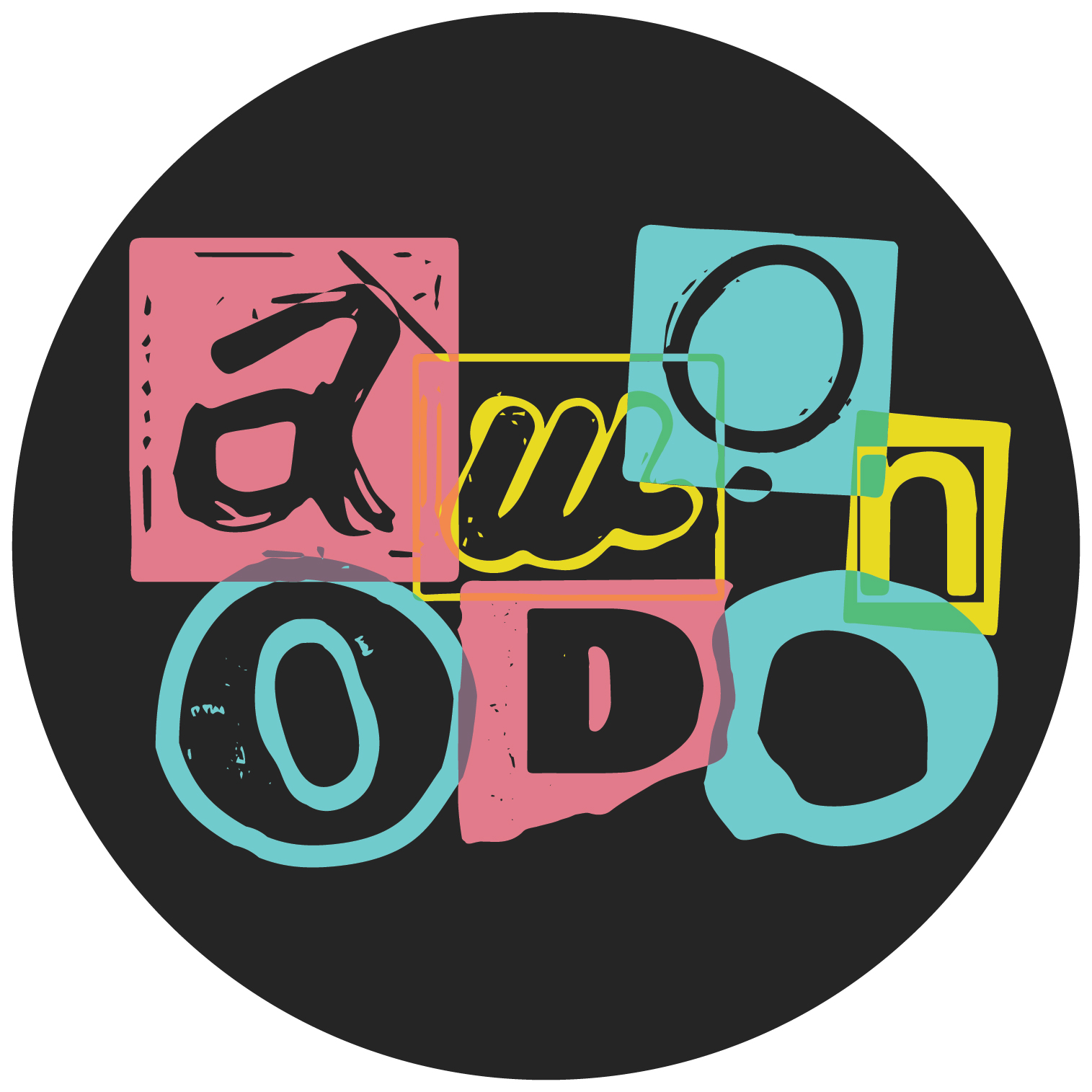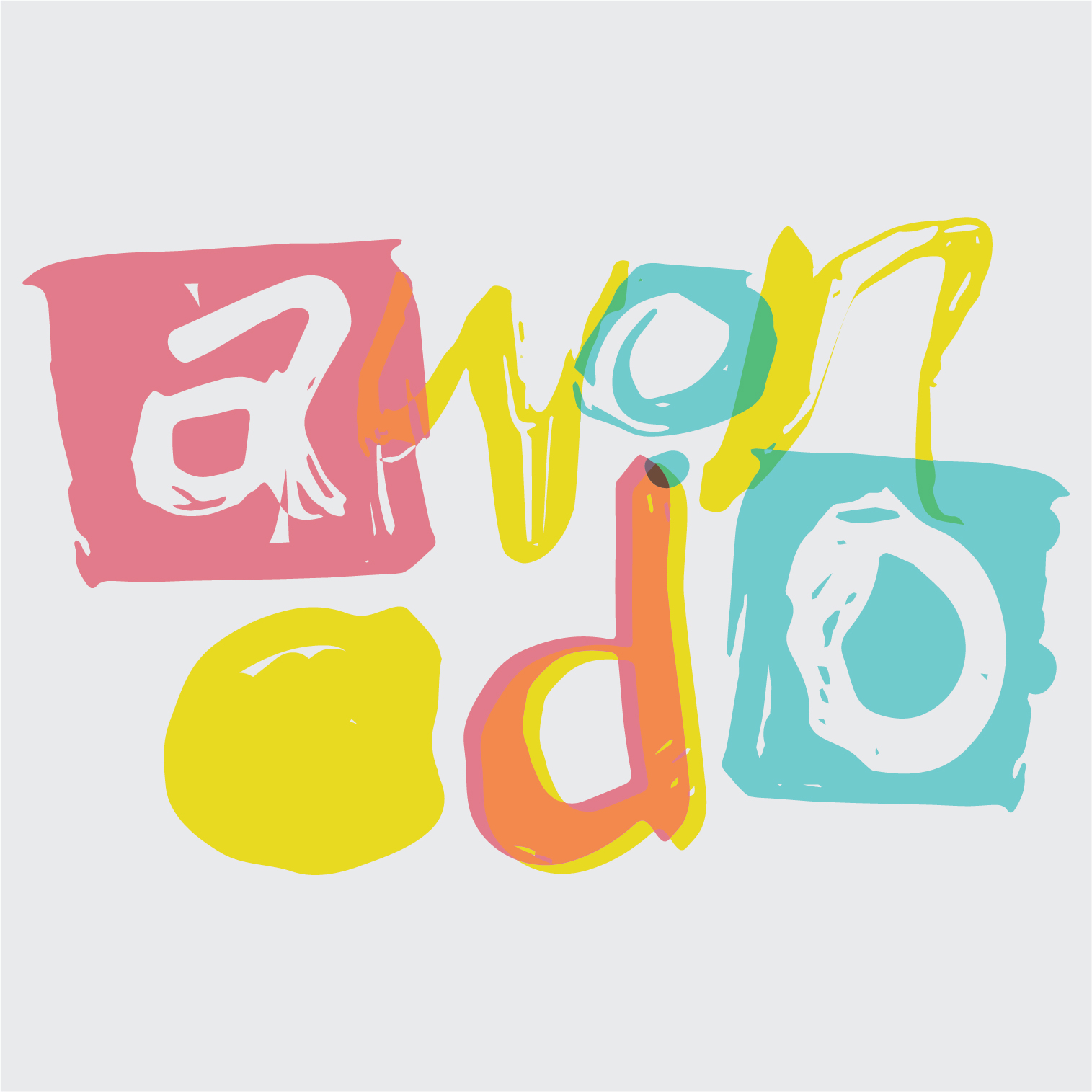
Awọn Odo
Awọn Odo is a Black-owned luxury brand for the youth, founded by fashion entrepreneur Ope Majekodunmi. With a name that translates to “The Youth” in Yoruba, the brand blends high-end aesthetics with expressive, street-smart energy—celebrating identity, voice, and vibrant self-expression.
Scope included visual identity development, illustration, and product mockups for sticker-based collateral, tailored to the brand’s ethos.
Approach
The logotype development explored multiple directions—hand-lettered block forms, neon gloss textures, and fluid shapes—all layered with saturated color and playful overlap. Inspired by sticker culture and tactile expression, the design process focused on translating youthful energy into type.
Outcome
The final mark is a custom wordmark set in a colorful, bubbly display style. It emphasizes legibility while maintaining individuality in each letterform. Sold as a set of vinyl stickers, the wordmark helped build brand recognition and community engagement through wearable, accessible pieces.